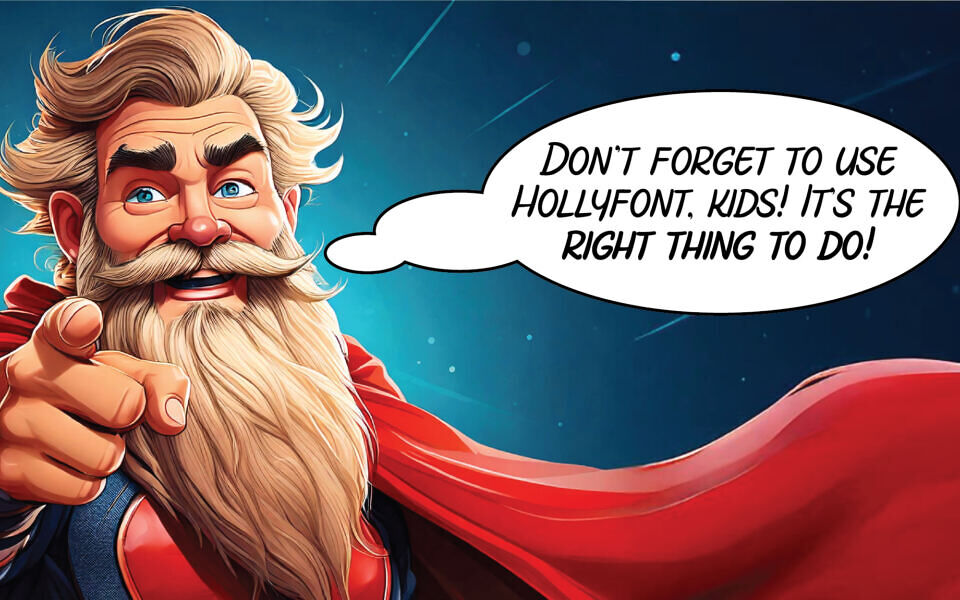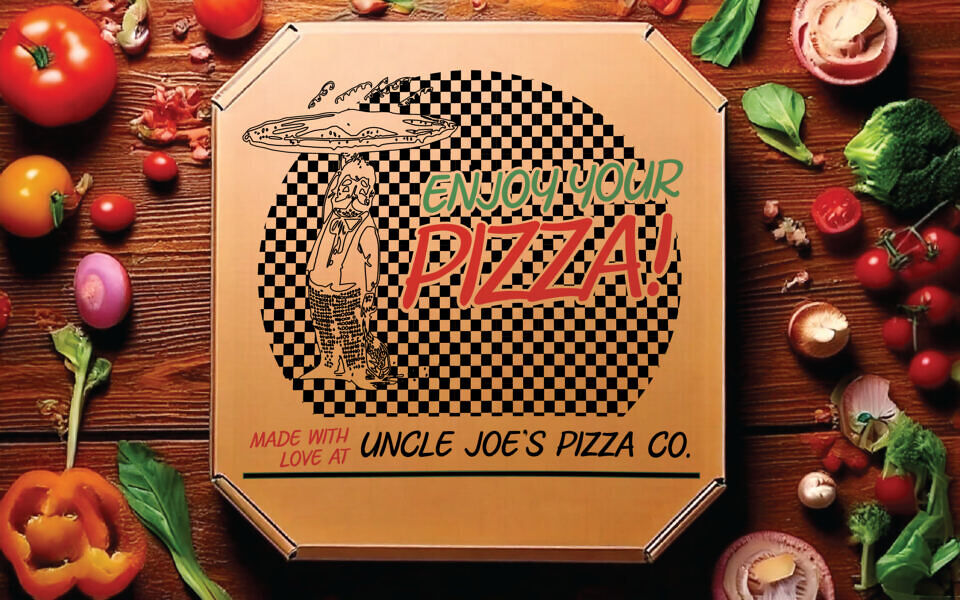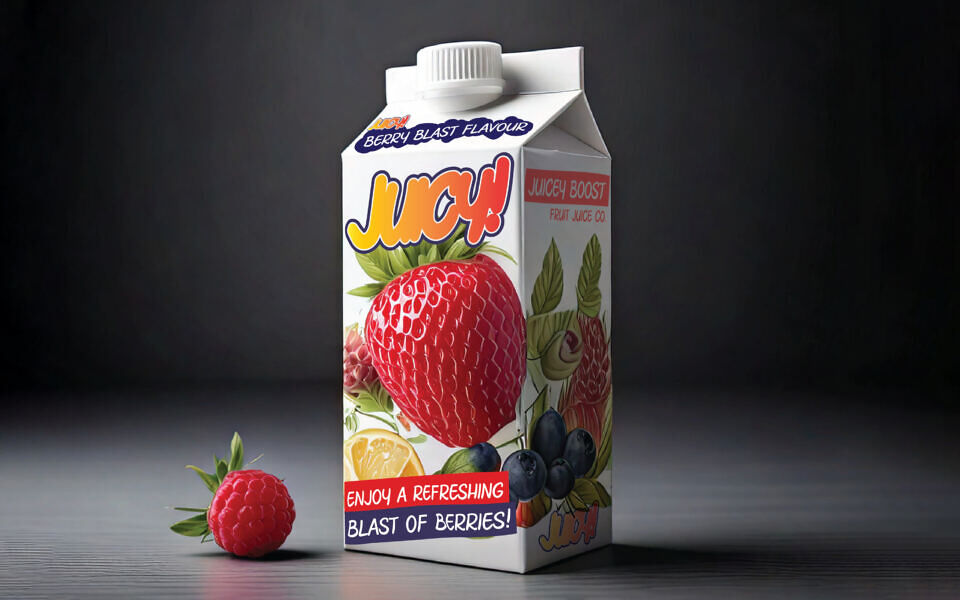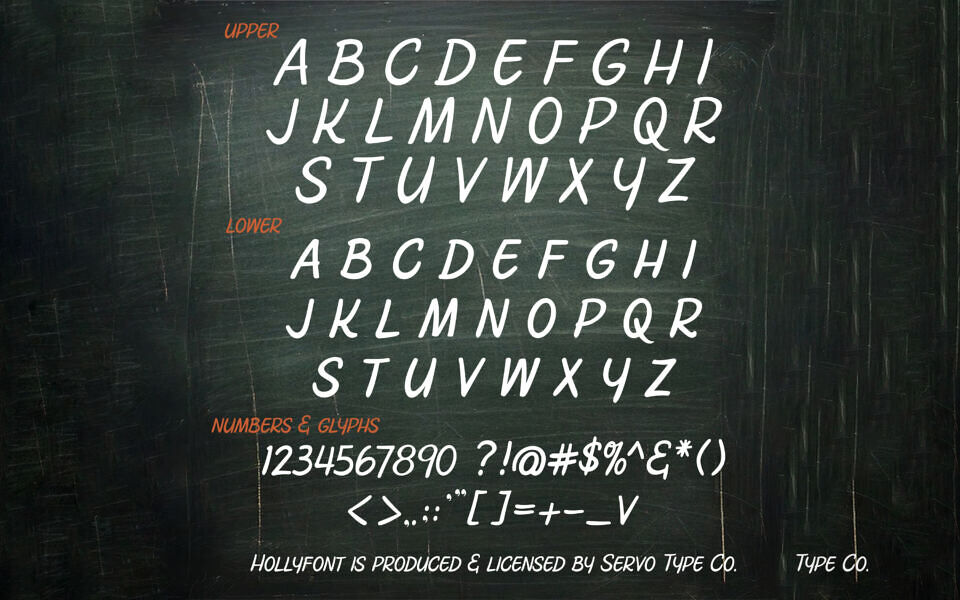
Hollyfont is an informal, handwritten display font designed by Glenn Holbrook & Mat Holbrook. It is ideal for use when a friendly, approachable and fun feeling is needed from your type. We think it would work very well as the typeface for a comic project.